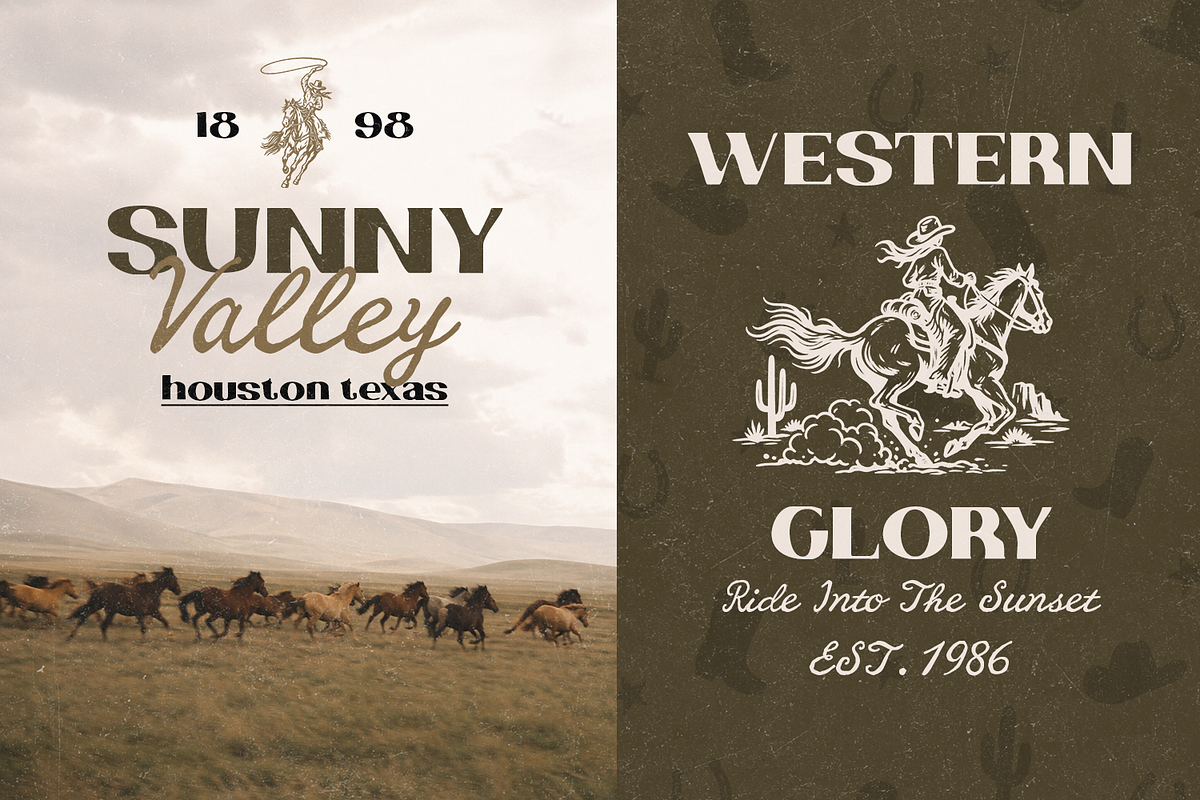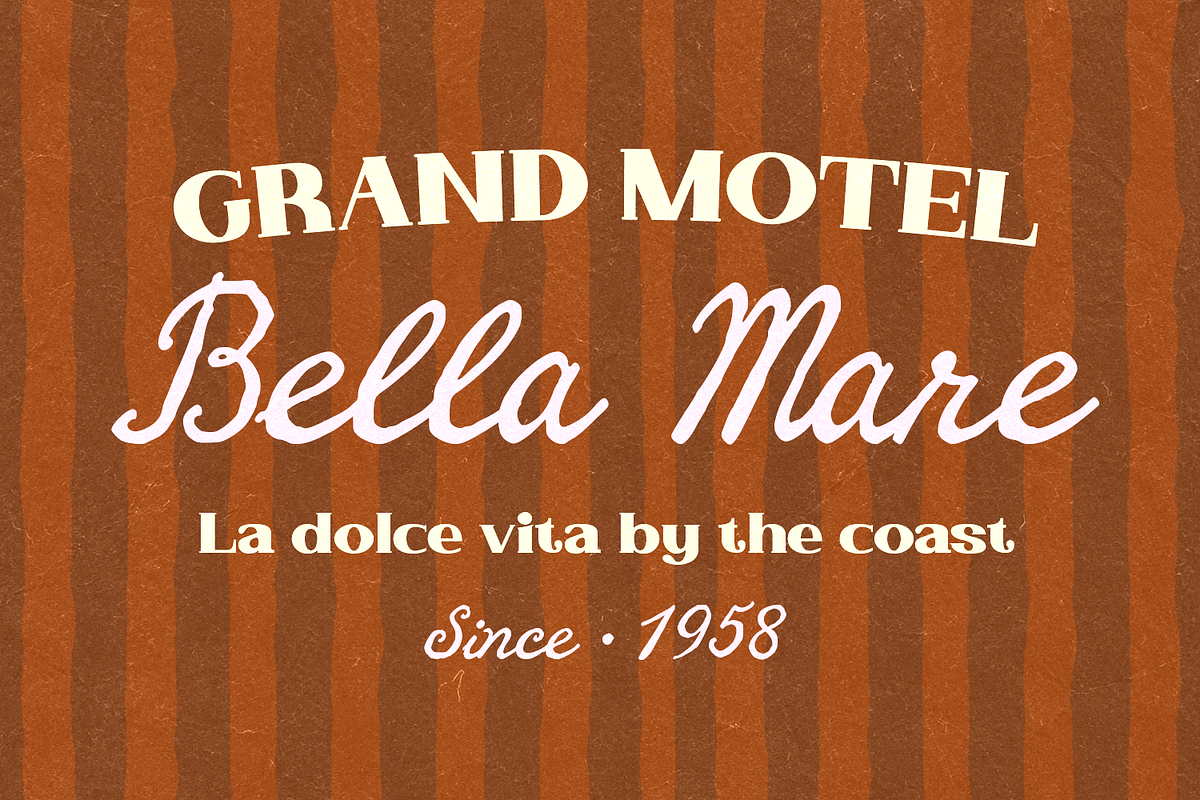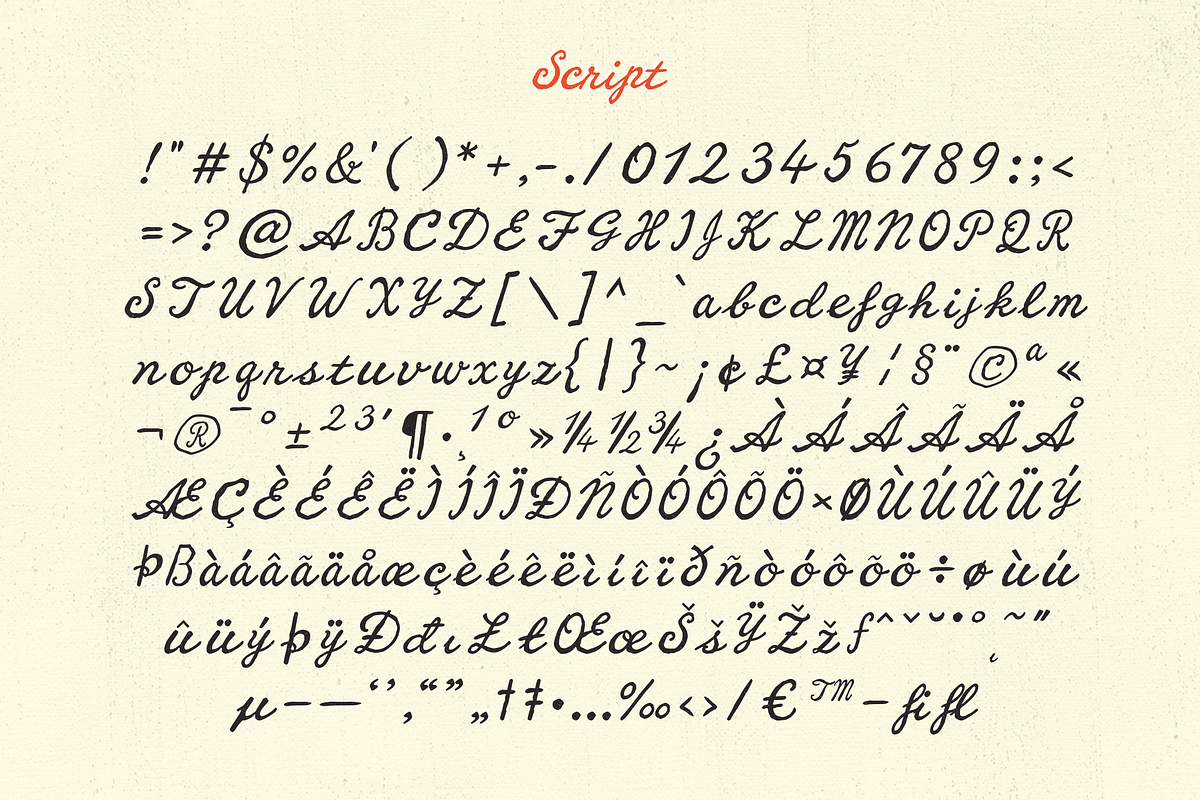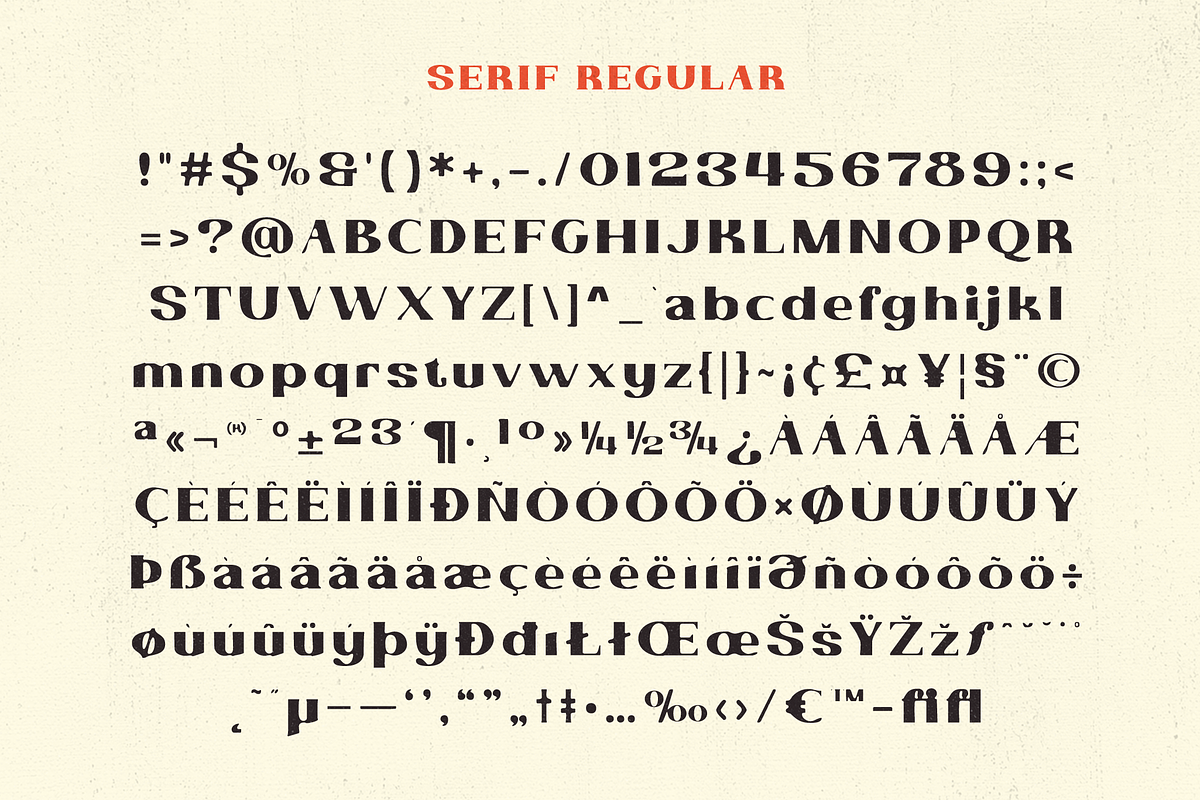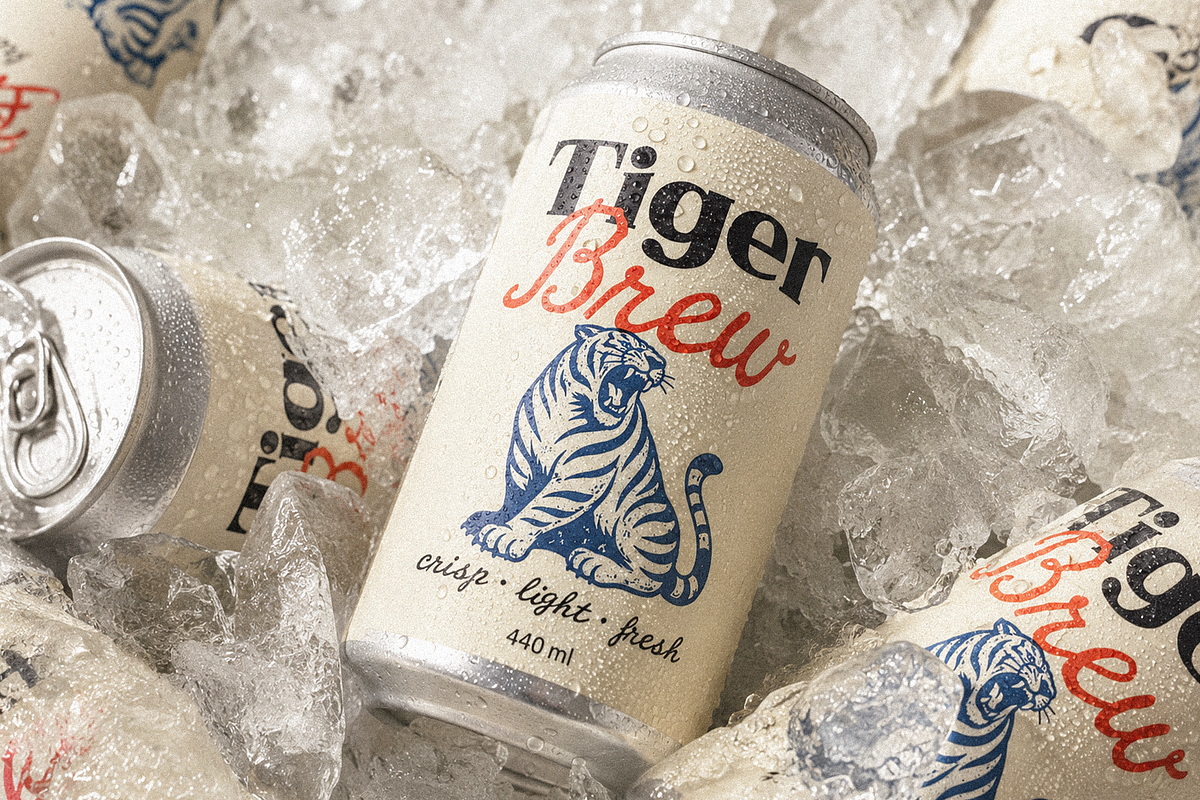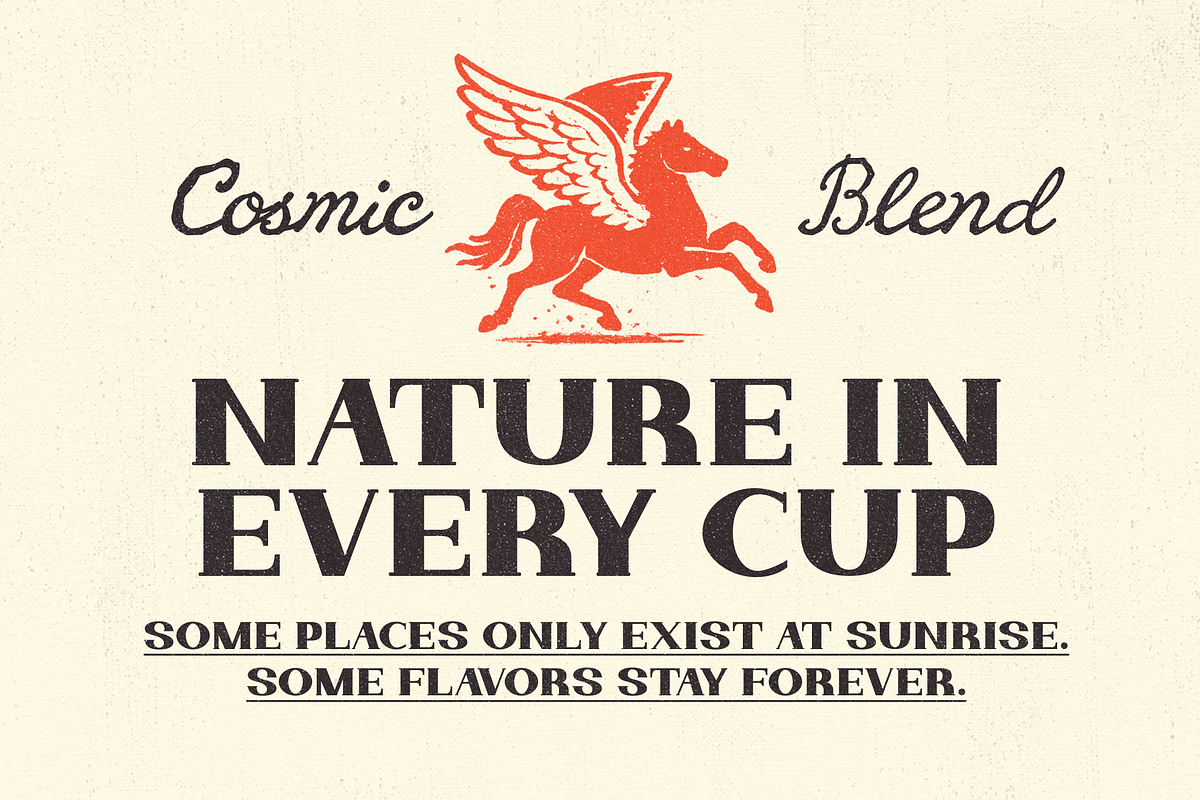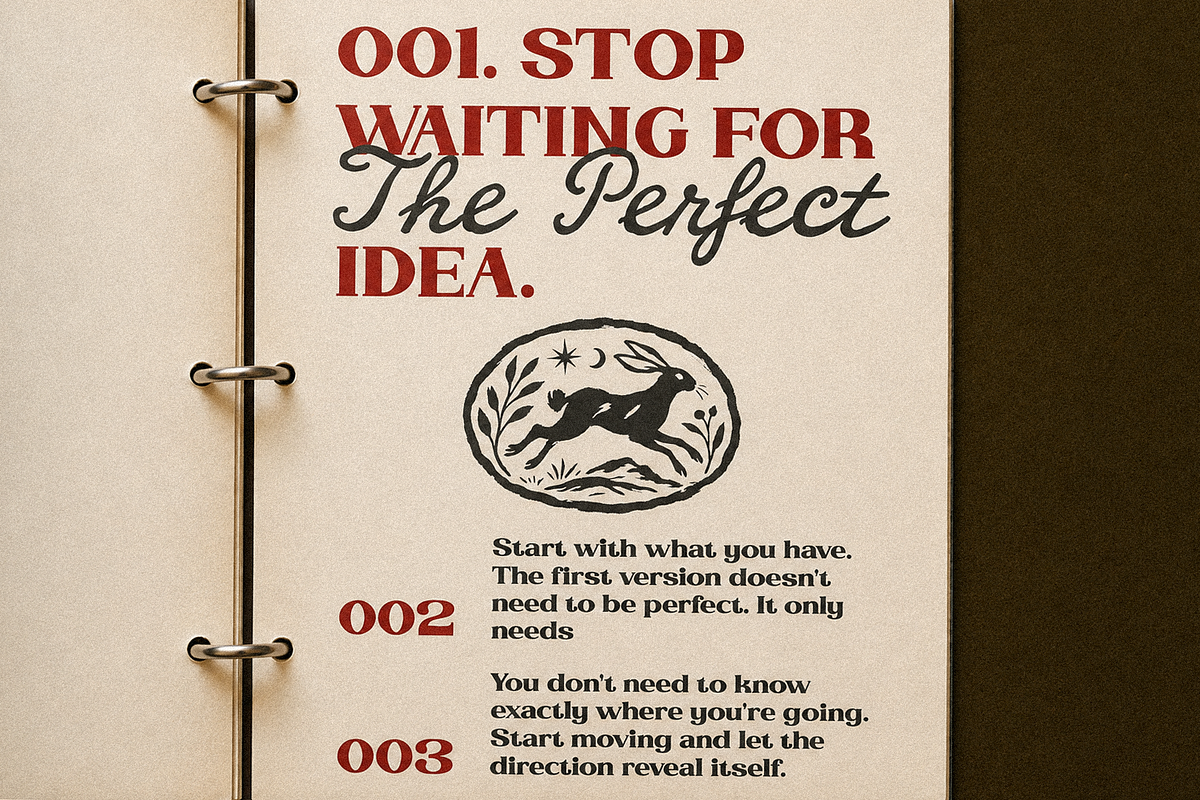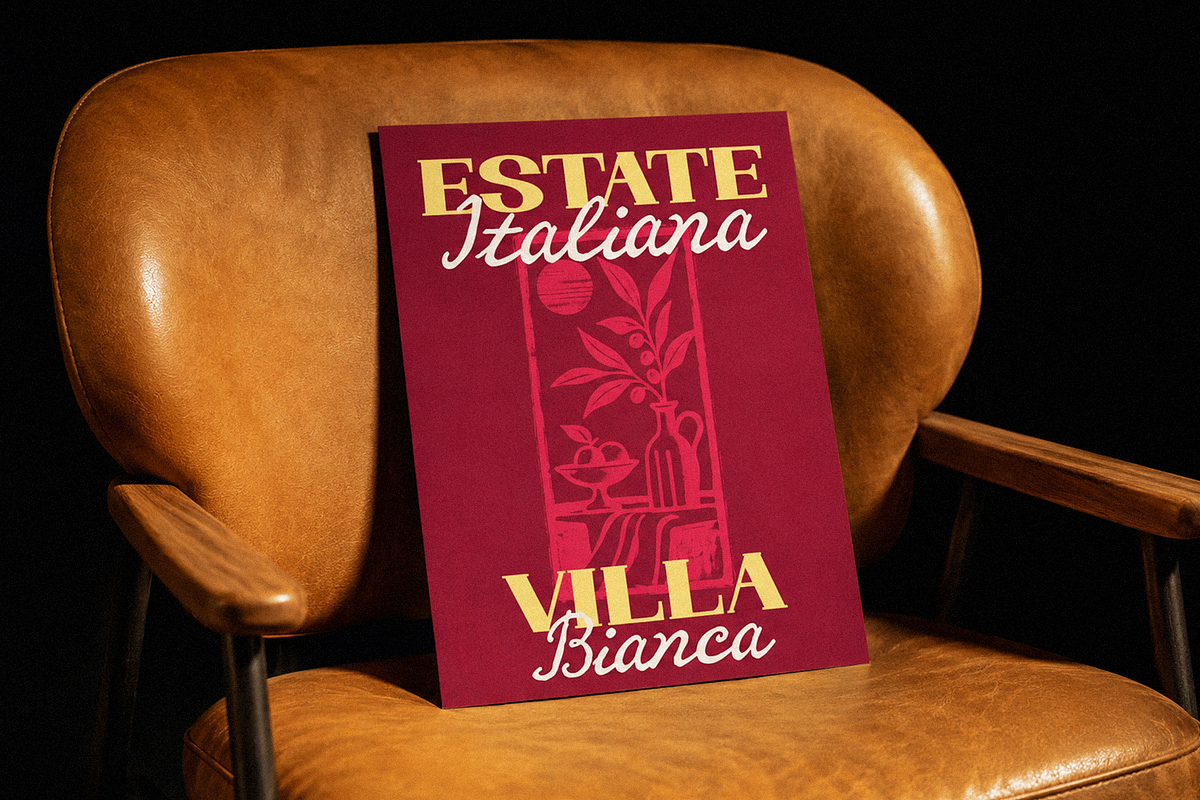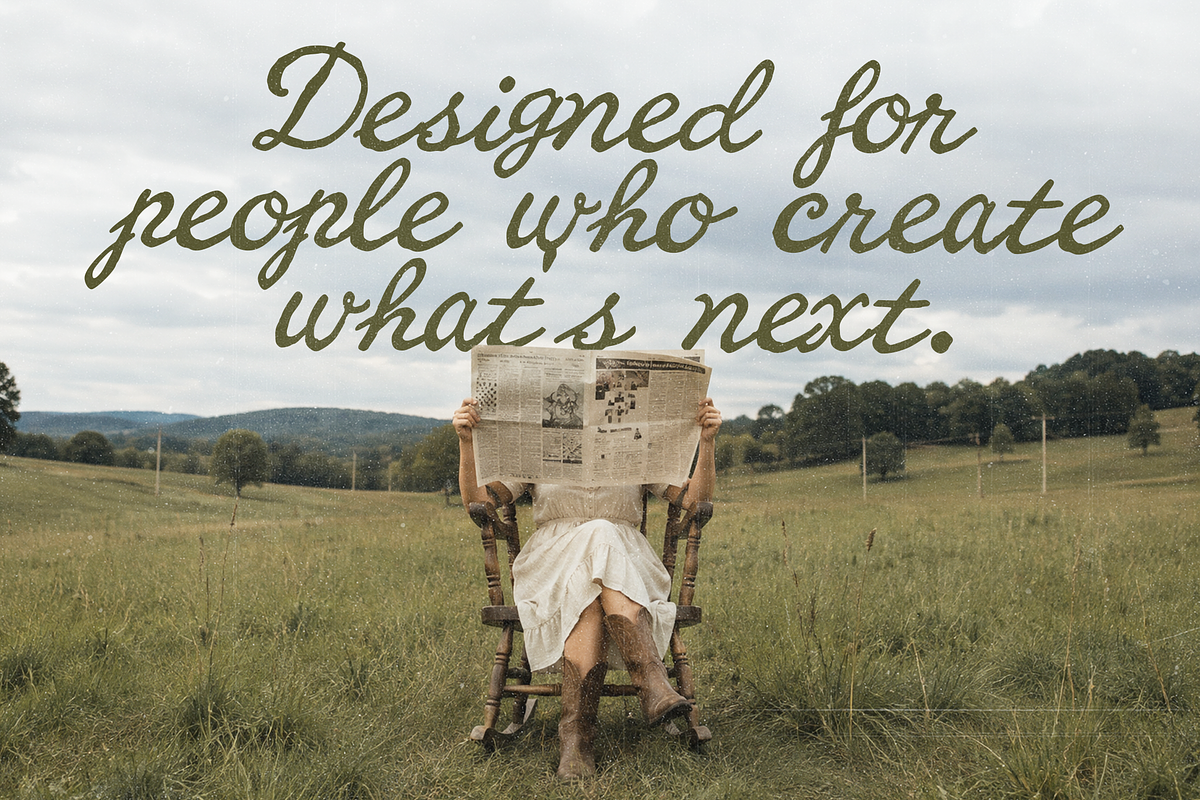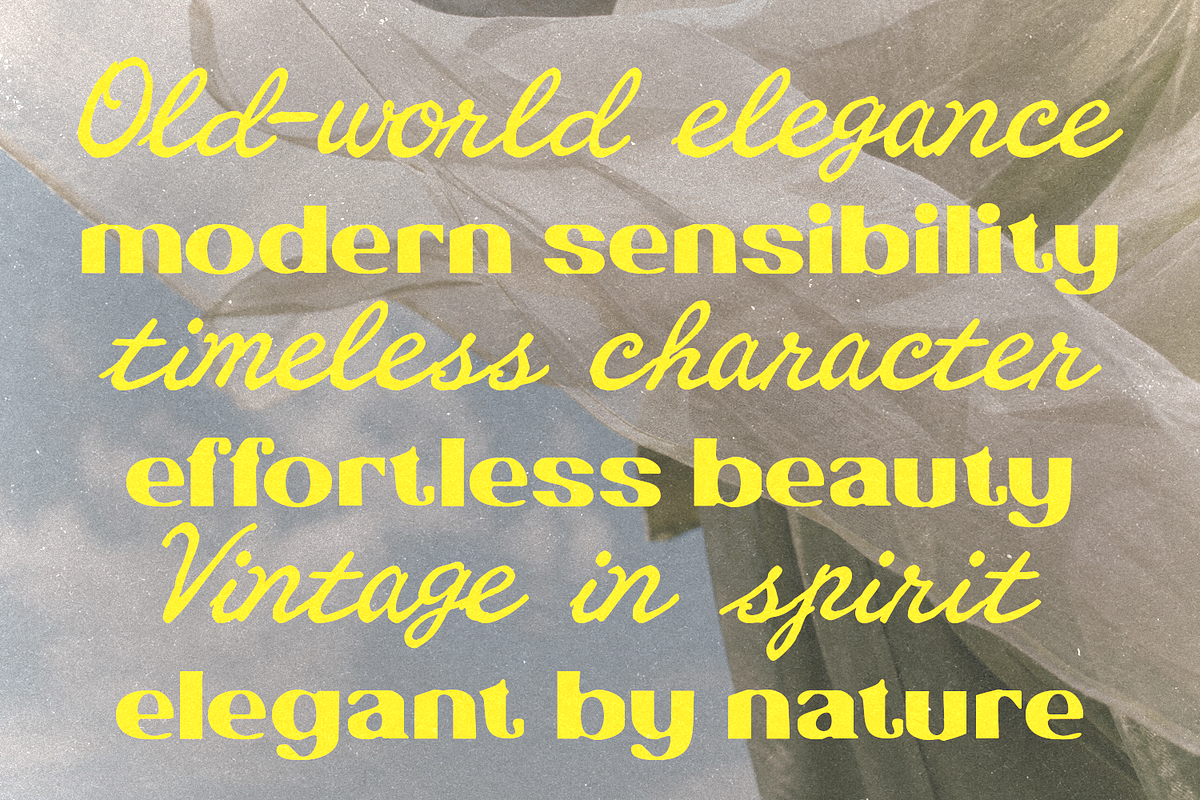
Royal Brune – Classic Font Duo
Introduce timeless sophistication and vintage elegance to your projects with Royal Brune, a refined classic font duo featuring a bold, structured serif paired with a flowing, graceful script. Designed to complement each other seamlessly, this combination brings high-contrast balance, luxury, and an editorial touch to modern and traditional creative layouts alike.
Whether used individually or combined, Royal Brune creates an immediate sense of prestige and craftsmanship, ideal for captivating titles, editorial layouts, and high-end digital visuals.
- Harmonious Duo: Perfect pairing of a bold classic serif and a graceful, fluid script font.
- High Contrast & Clarity: Refined letterforms engineered for strong hierarchy and maximum readability.
- Versatile Styling: Effortlessly transitions between vintage, classic, and contemporary aesthetics.
- Comprehensive Character Set: Features a complete set of upper and lowercase letters for both styles.
- OpenType Ligatures & Alternates: Includes custom ligatures to create natural connections and unique typographic layouts.
- Flawless Kerning: Precision-spaced characters ensure balanced hierarchy and visually stunning composition.
- Uppercase & Lowercase letters / Numbers & Punctuation and Multilingual Support